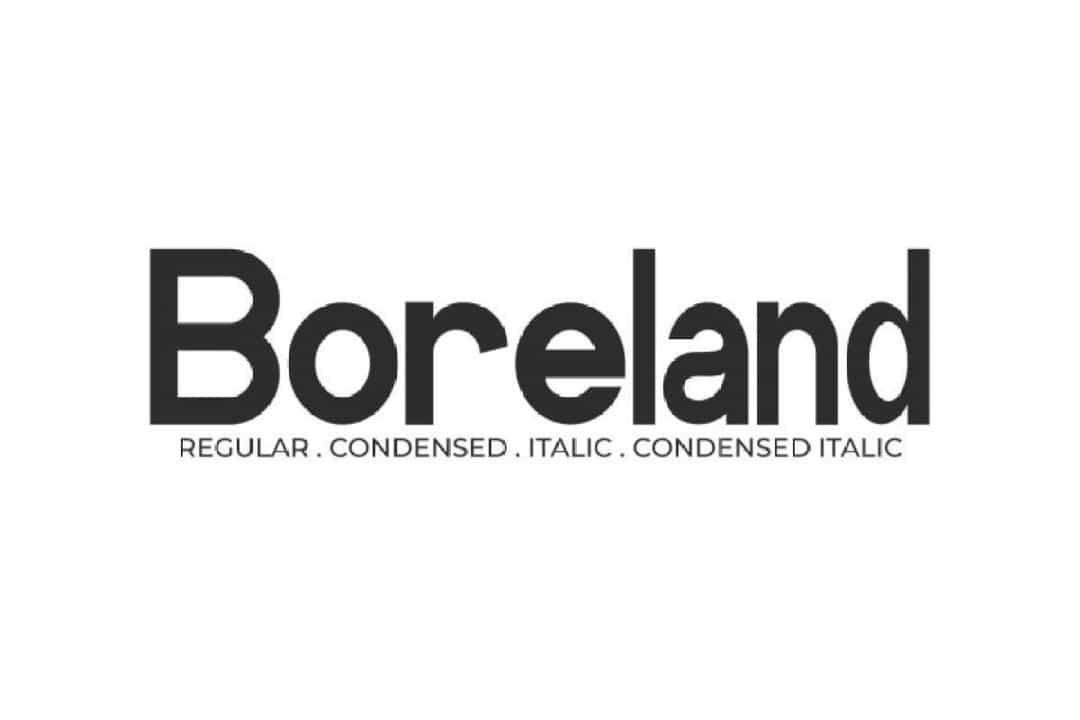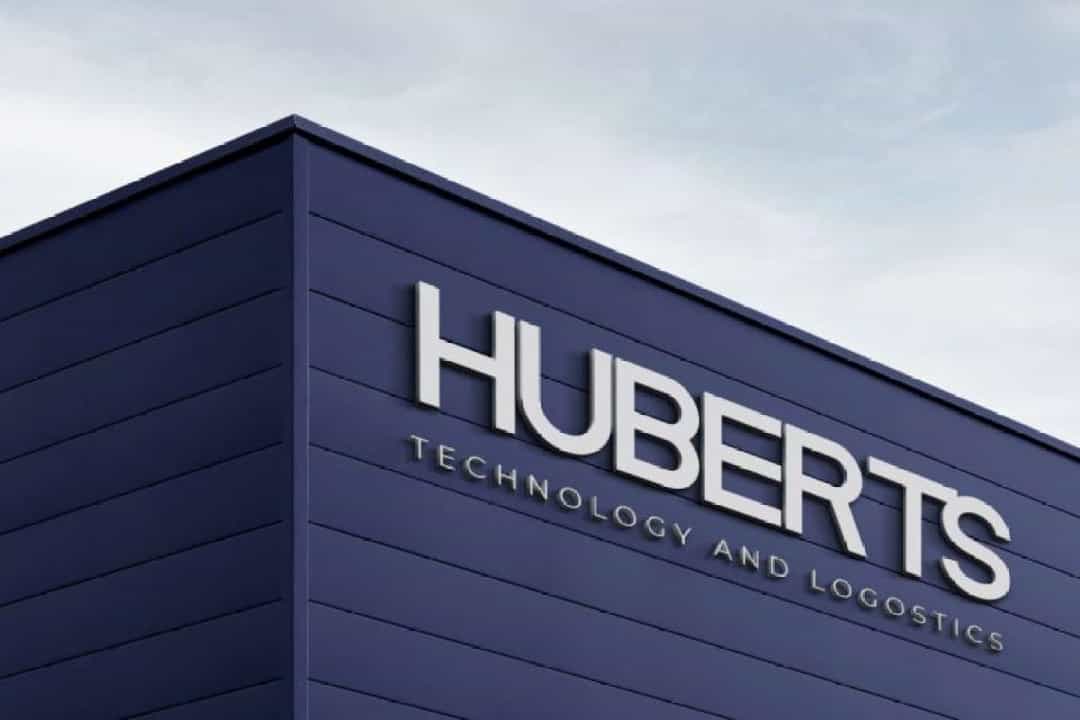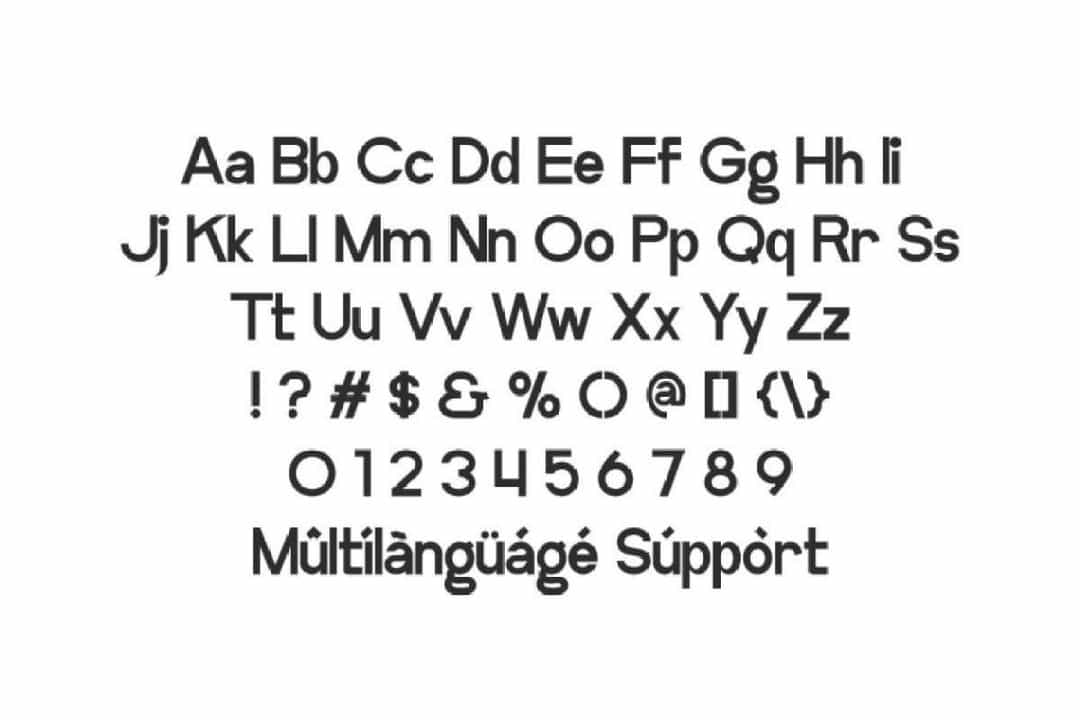
Discover Boreland Font, part of the Sans Serif collection—a versatile and unique font perfect for adding a personal touch to your projects. Download it for free and enjoy crafting designs with style, from invitations to social media posts. This font is available exclusively for personal use, giving you the freedom to create without limits. Unlock your creativity with Boreland Font today!
Boreland is an informal and contemporary sans serif font family designed by NihStudio in 2021 with four different styles for your use in all kinds of projects. Ideal for numerous industries and businesses – film, clothing, beverages, food magazines, games real estate signage technology writers websites etc.